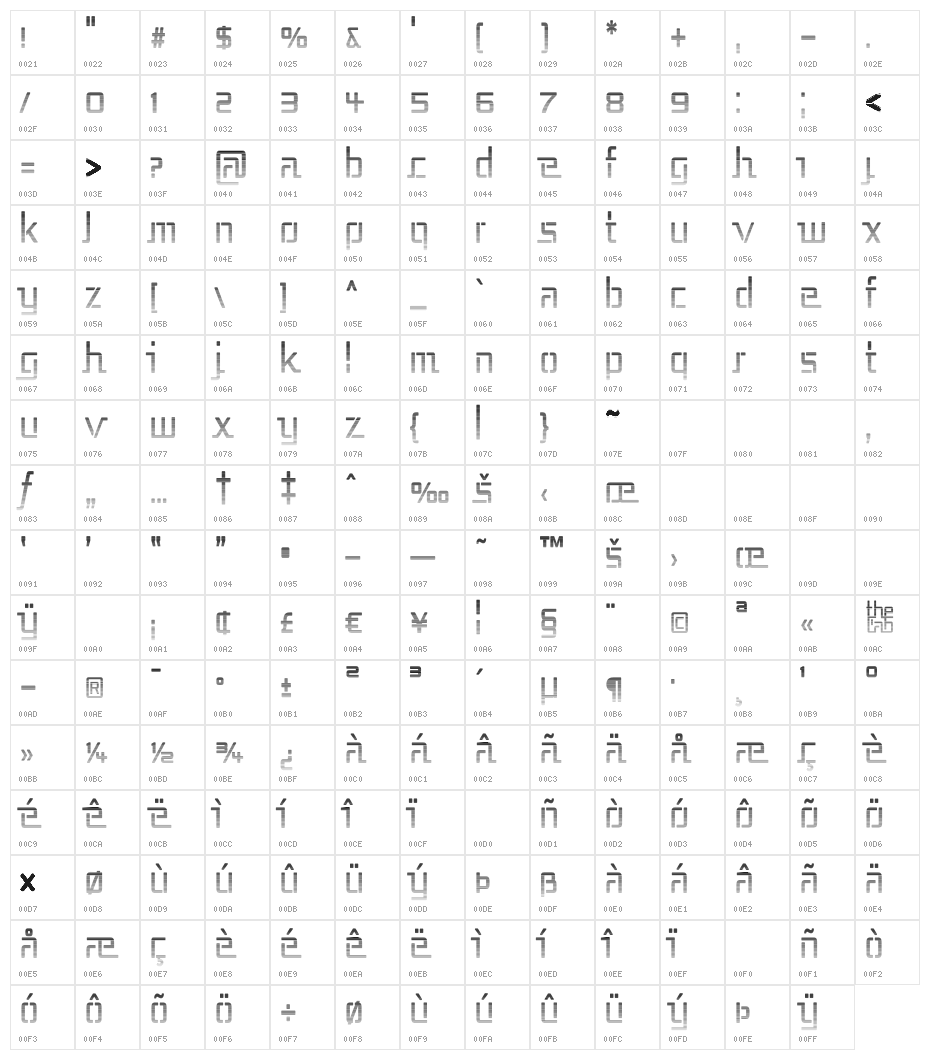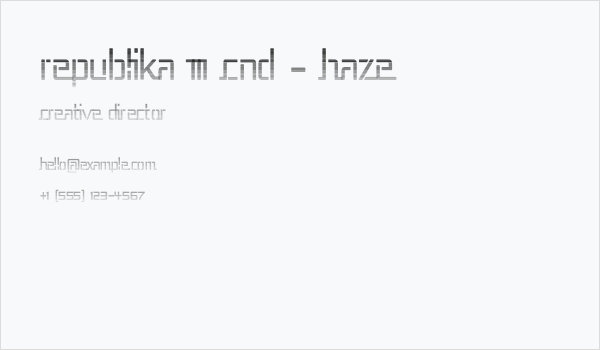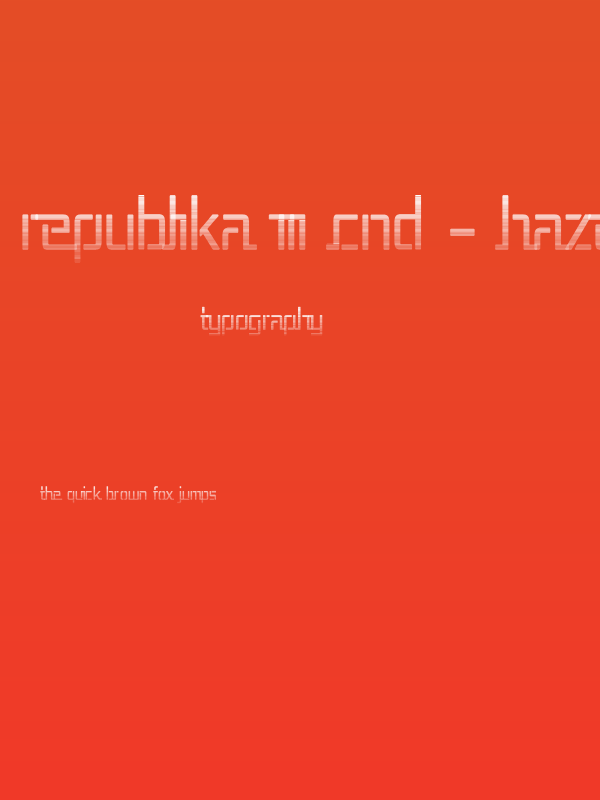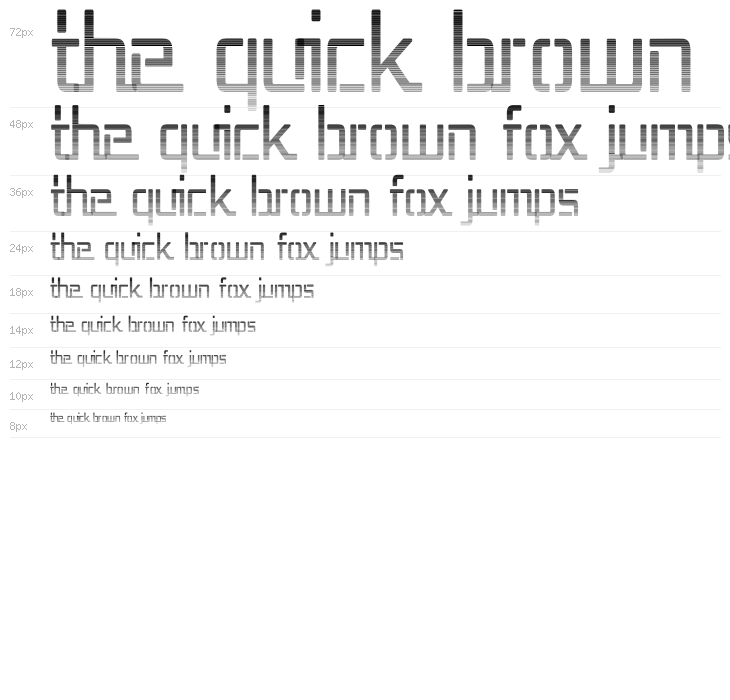
Republika III Cnd - Haze Font
Republika III Cnd - Haze Description
This font features a futuristic and geometric design with a condensed structure. The characters are composed of straight lines and sharp angles, giving it a modern and tech-inspired appearance. The uppercase and lowercase letters maintain a consistent height, contributing to a uniform look. The numerals are bold and easily distinguishable, while the special characters are designed to match the overall aesthetic. The font's unique style makes it suitable for digital and sci-fi themed projects.